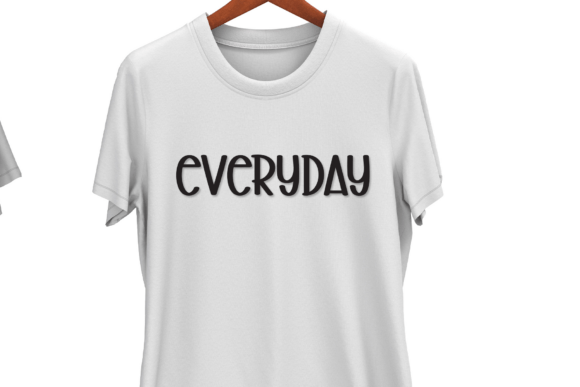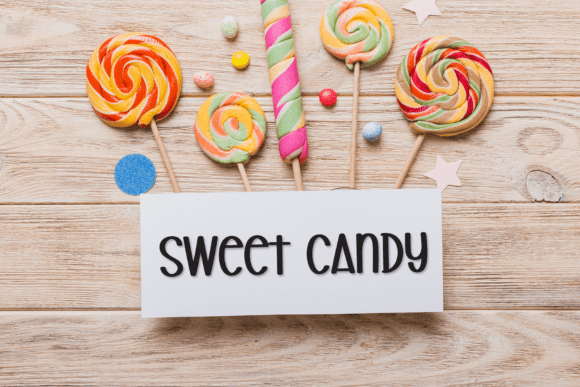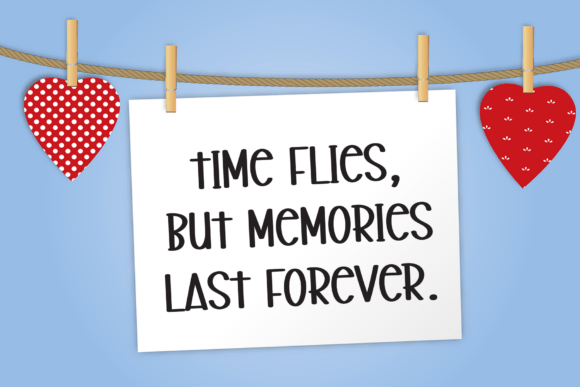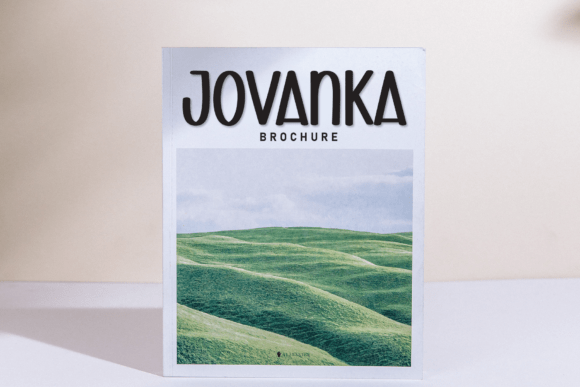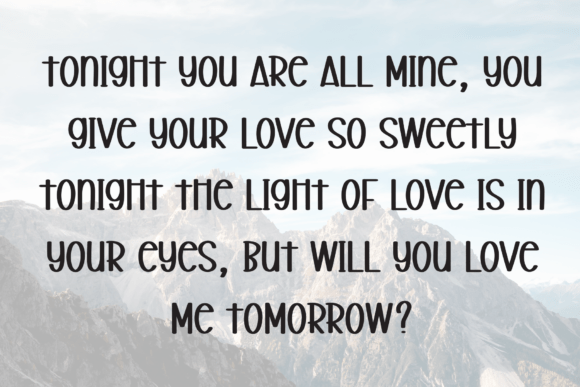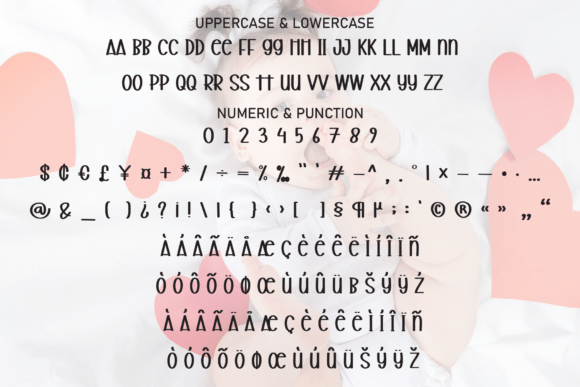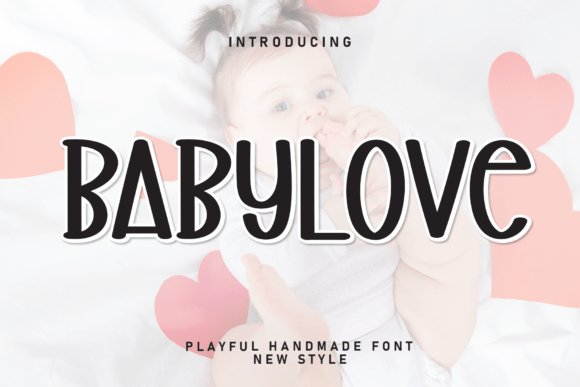
Babylove Font: Elevate Your Designs with Elegant and Creative Typography
Are you a designer, crafter, or DIY enthusiast looking for a unique and stylish font to take your projects to the next level? Look no further than the Babylove Font, a beautifully crafted typeface designed to add a touch of elegance and sophistication to your creations. In this article, we’ll explore the features and benefits of the Babylove Font, and how it can help you achieve extraordinary results in your designs.
What is Babylove Font?
Babylove Font is a specially designed typeface, perfect for a wide range of applications, including wall displays, wedding invitations, social media post logos, advertisements, product packaging, product designs, labels, photography, watermarks, invitations, stationery, and any project that requires tasteful handwriting. This font is carefully crafted to provide a unique and creative expression, setting your designs apart from the rest.
Key Features of Babylove Font
Here are some of the key features that make Babylove Font an exceptional choice for designers and crafters:
Benefits of Using Babylove Font
By choosing the Babylove Font, you can enjoy a range of benefits that can elevate your designs and streamline your creative process:
- Elegant and sophisticated designs: The Babylove Font provides a beautiful and refined typeface that can add a touch of elegance and sophistication to your designs.
- Versatility: The font is perfect for a wide range of applications, from wedding invitations and social media graphics to product packaging and branding.